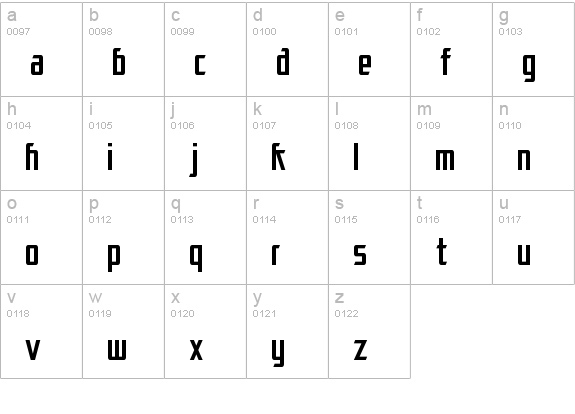
SF Electrotome Condensed Font Details
SF Electrotome Condensed is a distinctive, condensed-width variant in the SF typeface family \xE2\x80\x94 well suited to design and typography projects.
SF Electrotome Condensed font is a striking and modern typeface that exudes a sense of technological advancement and innovation. With its sleek and streamlined design, this font is perfect for any project that seeks to convey a futuristic and cutting-edge aesthetic. Featuring condensed letterforms with sharp edges and clean lines, SF Electrotome Condensed font is ideal for headlines, titles, logos, and other display purposes. Its bold and attention-grabbing appearance ensures that your message will be delivered with impact and style. One of the standout features of SF Electrotome Condensed font is that it is freely available to download at FontsMarket.com. This means that you can enhance your design projects without having to worry about any additional costs. Whether you are a professional designer or a hobbyist, this font offers you the opportunity to elevate your work without breaking the bank. With its extensive character set, SF Electrotome Condensed font supports multiple languages and allows for versatility in design. Its legibility and readability make it suitable for both print and digital projects, ensuring that your message is conveyed clearly and effectively. Whether you are working on a website, a poster, a branding project, or any other creative endeavor, SF Electrotome Condensed font is an excellent choice. Its modern and sleek design, combined with its freely available download, make it a must-have for any designer looking to make a bold statement.